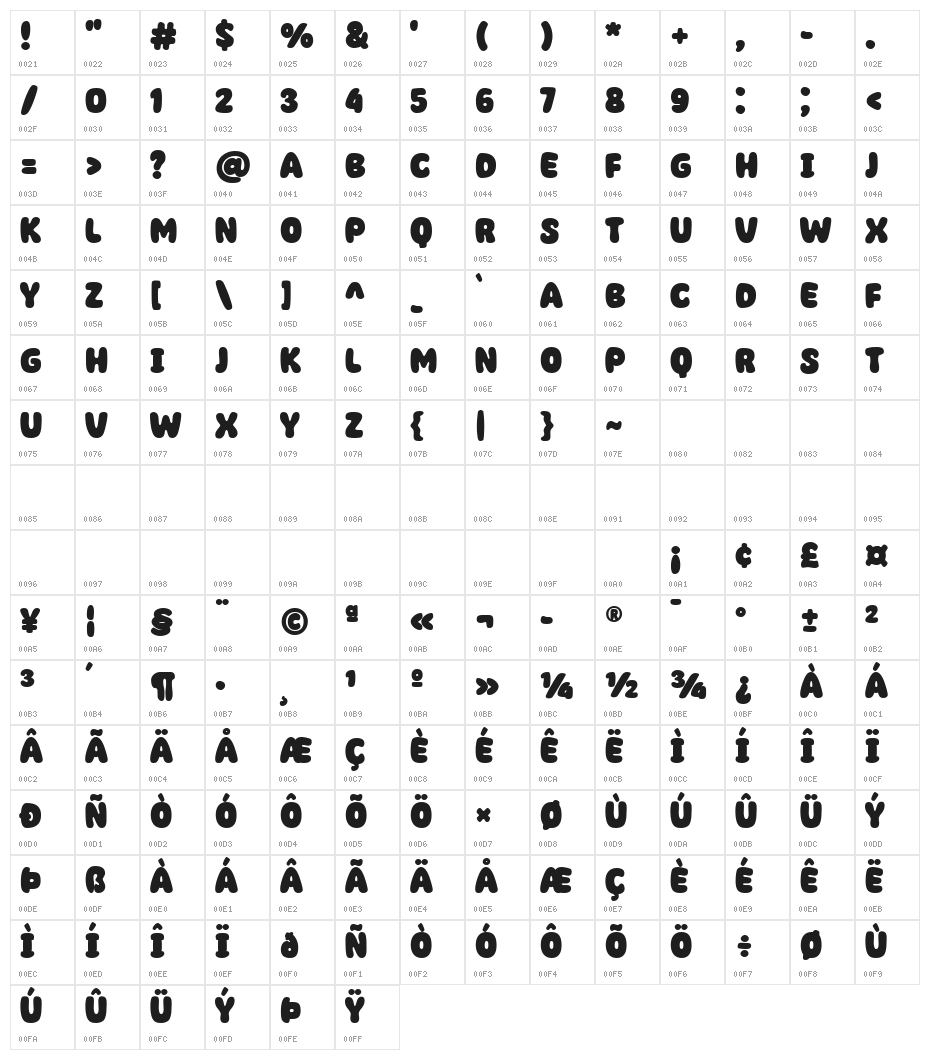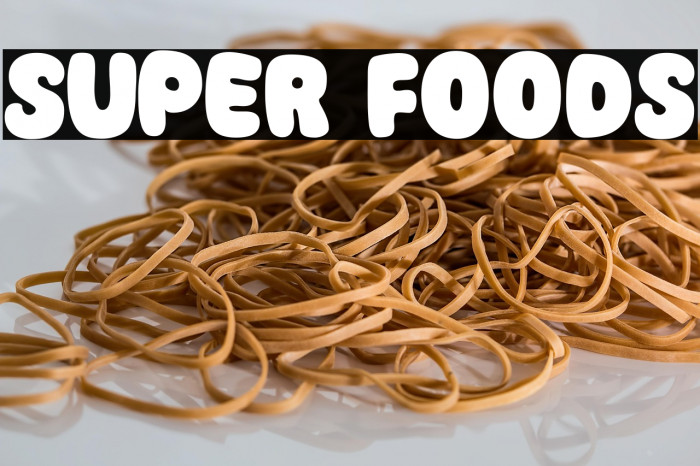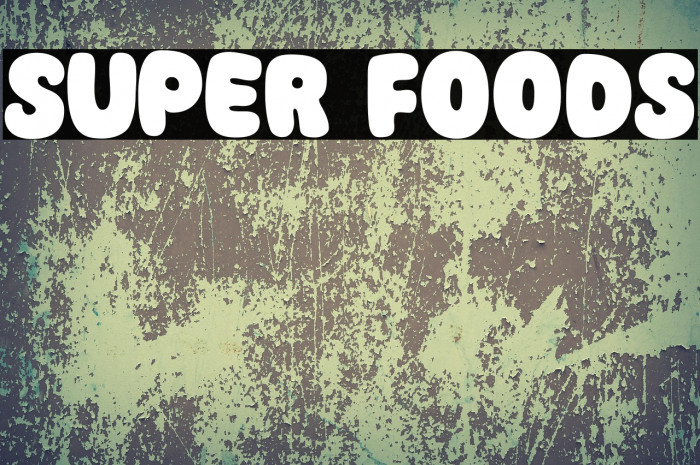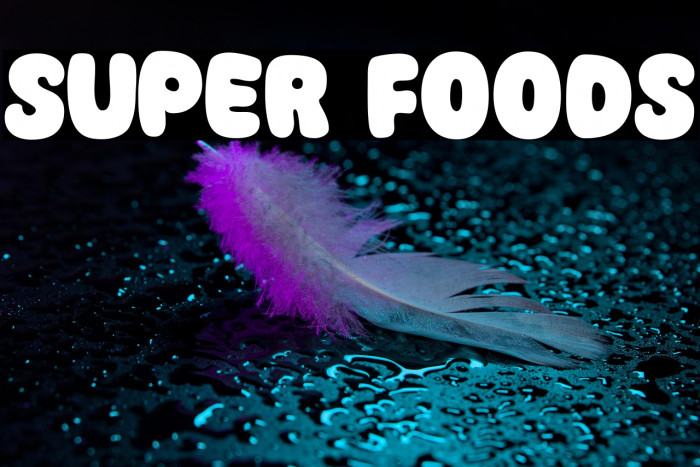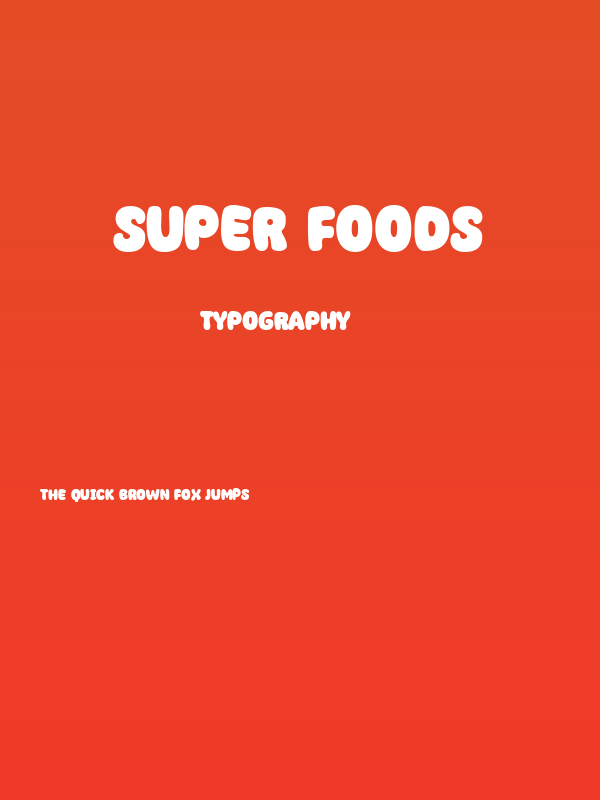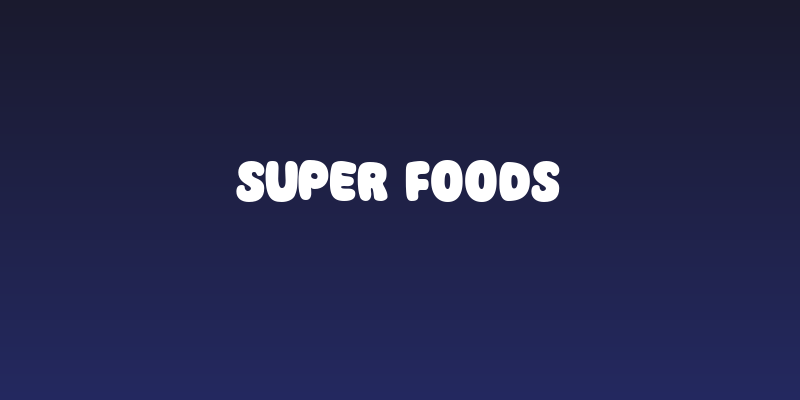
Super Foods Font
Super Foods Description
This font features a playful and bold style with rounded, bubbly characters that convey a sense of fun and approachability. The letters are uniformly thick, creating a cohesive and visually impactful appearance. The rounded edges and lack of sharp angles give it a friendly and informal vibe, making it suitable for casual and lighthearted applications. The numbers and special characters maintain the same playful aesthetic, ensuring consistency across all text elements. This font is particularly effective in grabbing attention due to its boldness and unique character shapes.
| Proposed Projects | Perfect for children's books, playful branding, posters, and social media graphics. |